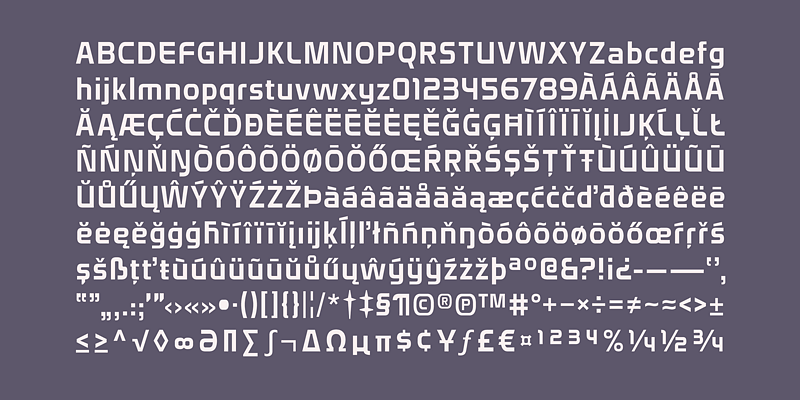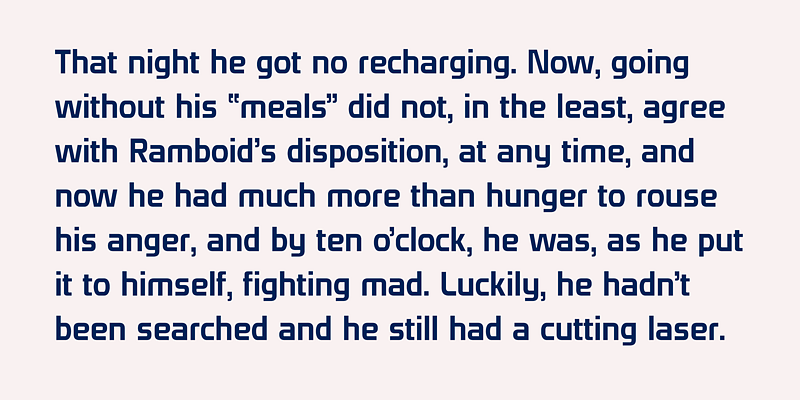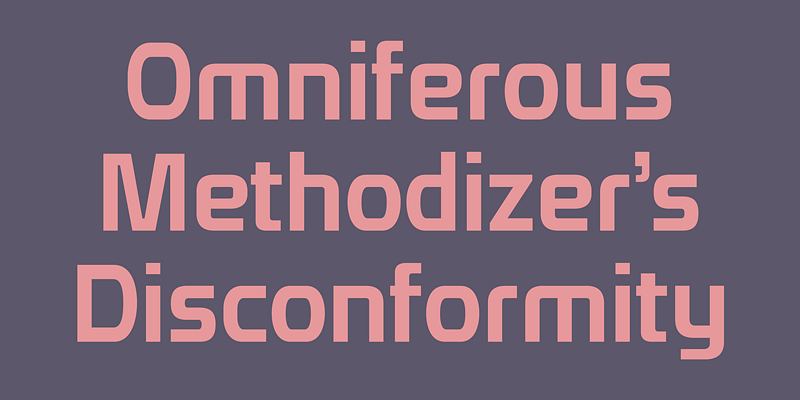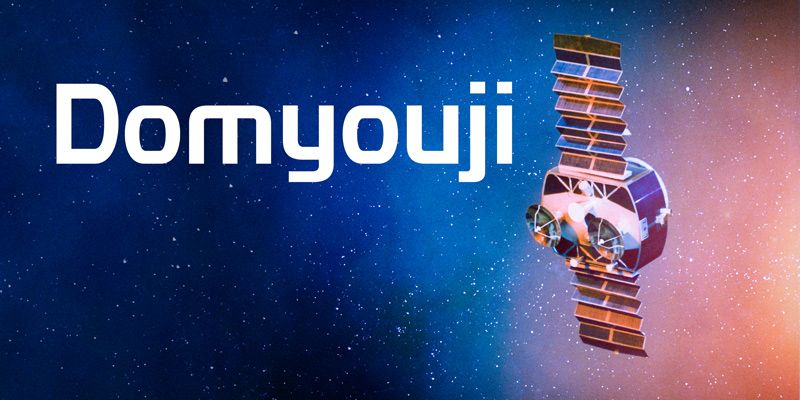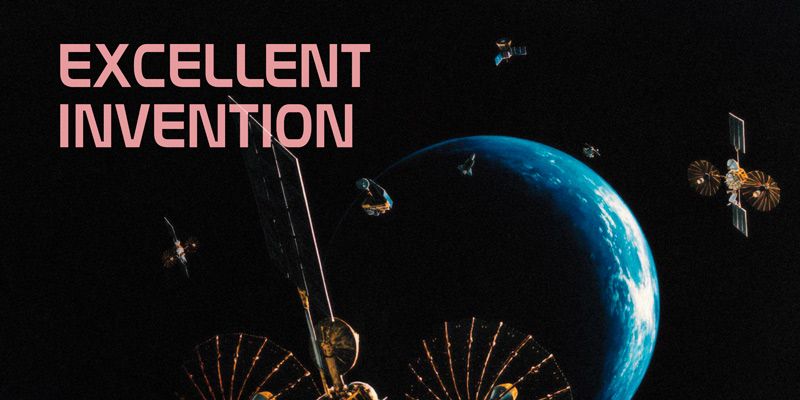
Domyouji gives squared technical lettering a compact, practical voice. Its geometry points toward futuristic interfaces, but the forms are orderly enough to support more than a single title. It was designed as a body-copy companion to Korataki, making it useful where the same science-fiction setting needs both display spectacle and explanatory information. Consider it for equipment labels, control headings, mission briefings, container markings, or the short descriptions that appear throughout a game world. Outside fiction, Domyouji can lend hardware packaging, robotics graphics, and electronics displays a measured technical character. Its clean, regular style can act as the consistent label layer throughout a much larger visual world.